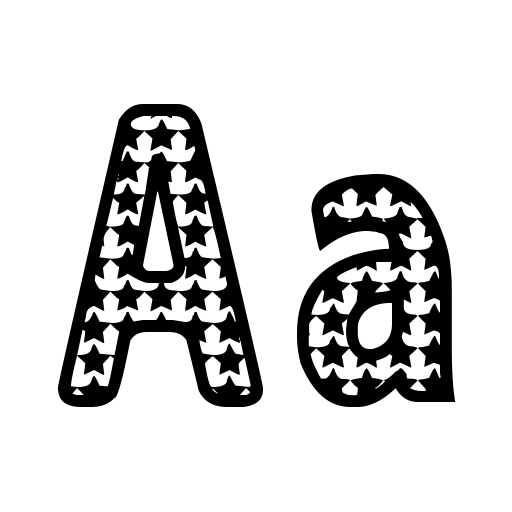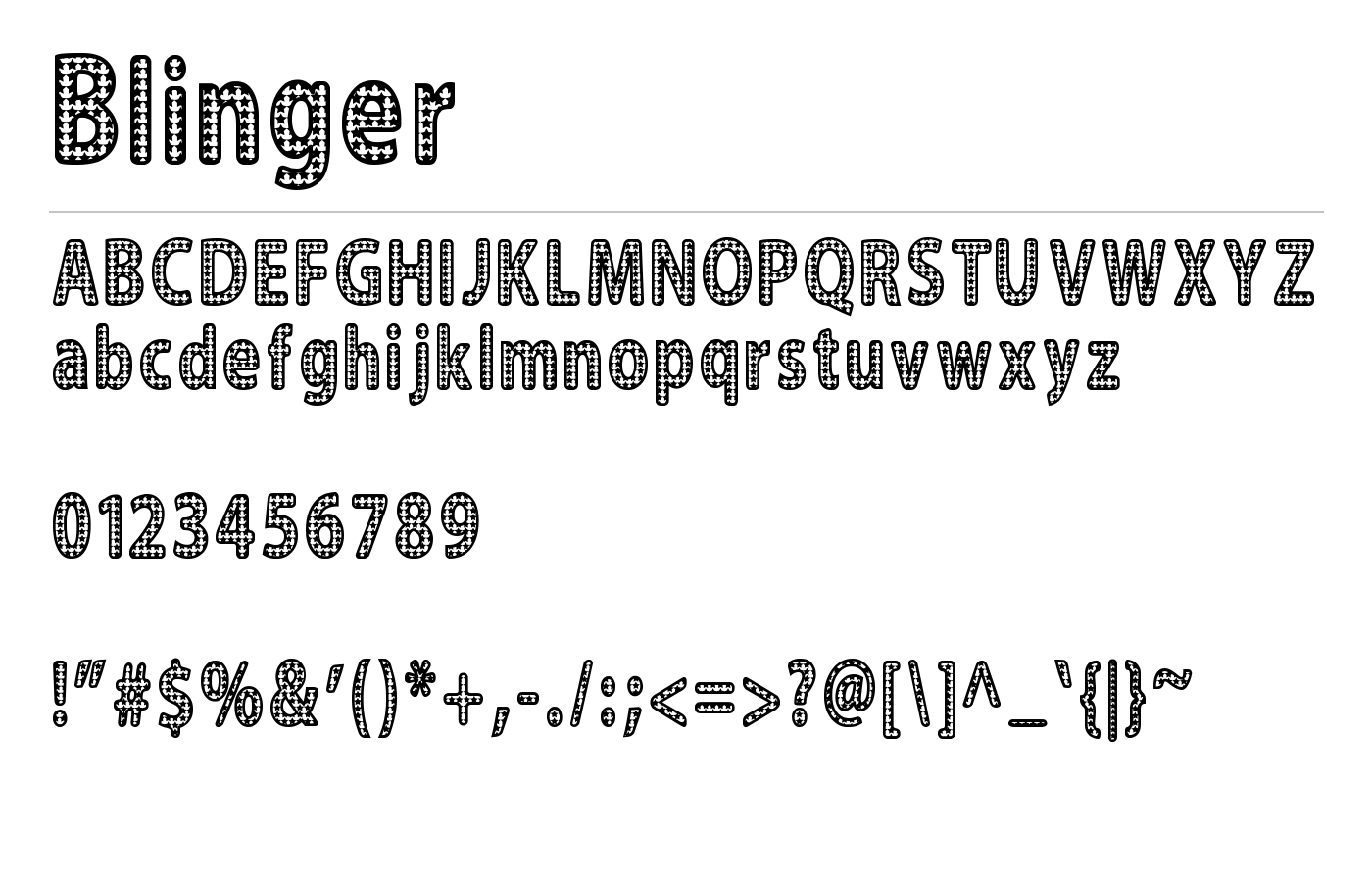
Blinger is a playful and bold display font with a distinctive dotted pattern filling its tall, condensed letterforms. Its rounded edges and decorative style give it a fun and eye-catching personality, perfect for adding a quirky, vintage carnival or retro vibe to branding, posters, and headlines where standout impact is needed. This font works best in creative projects that want to convey excitement and a lighthearted tone.
Blinger Font
About Blinger Font